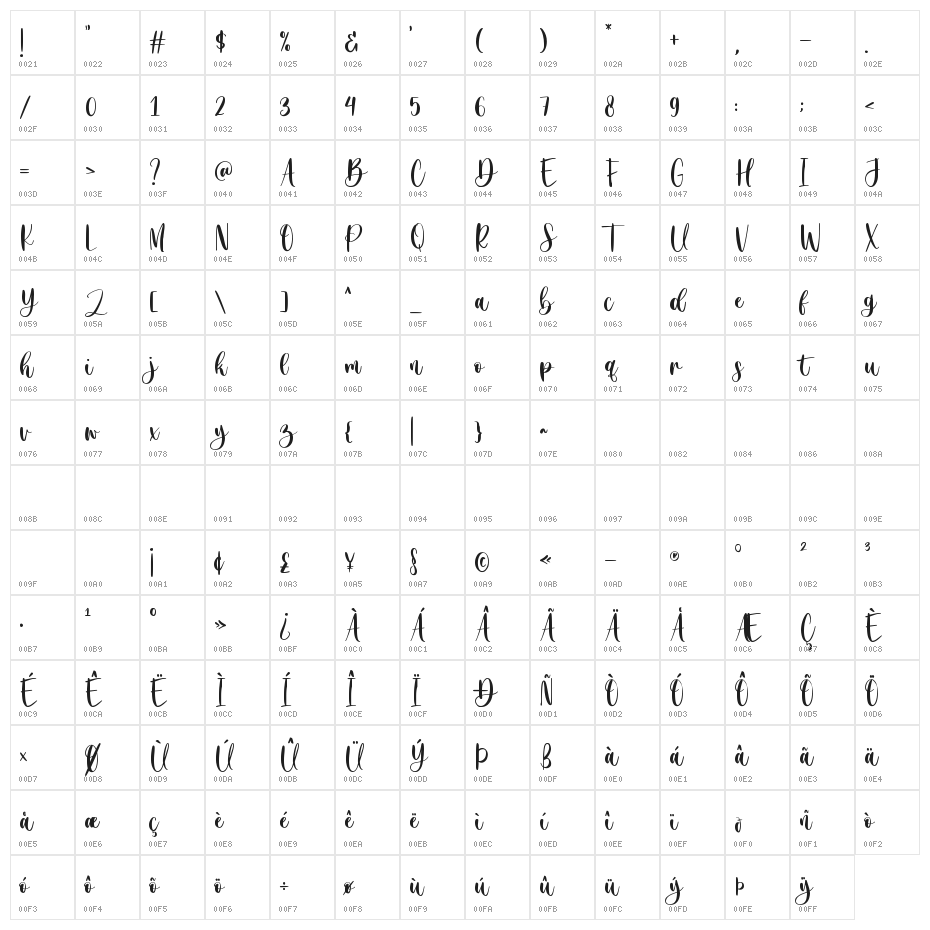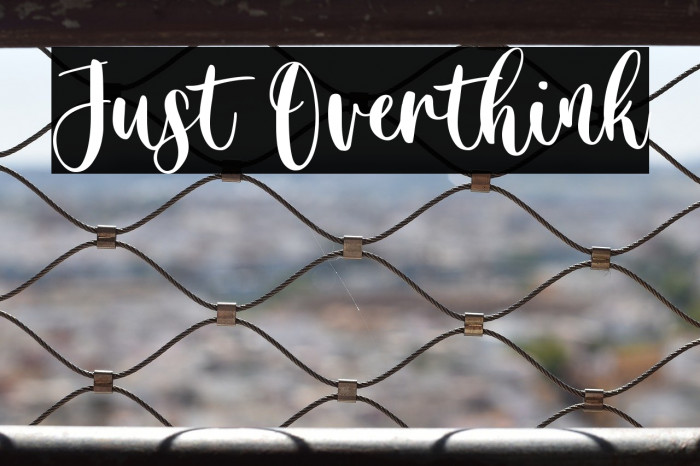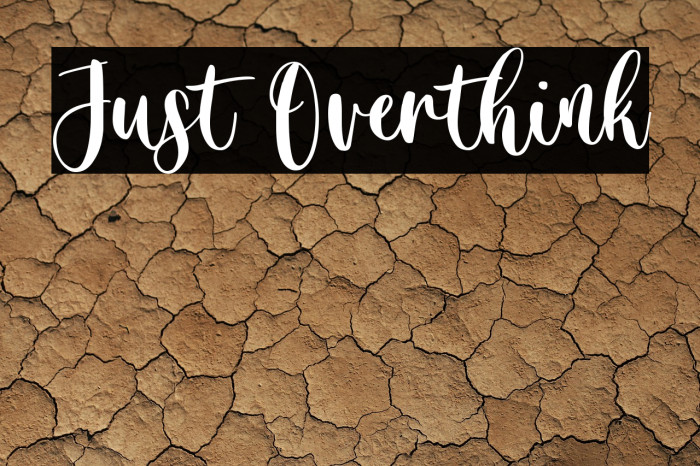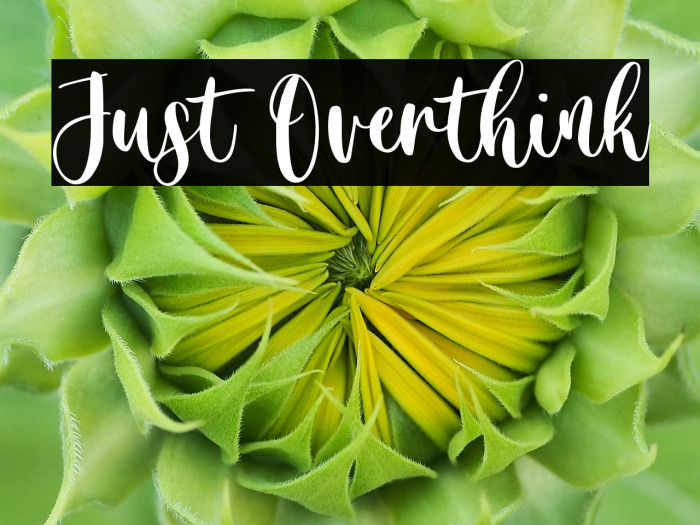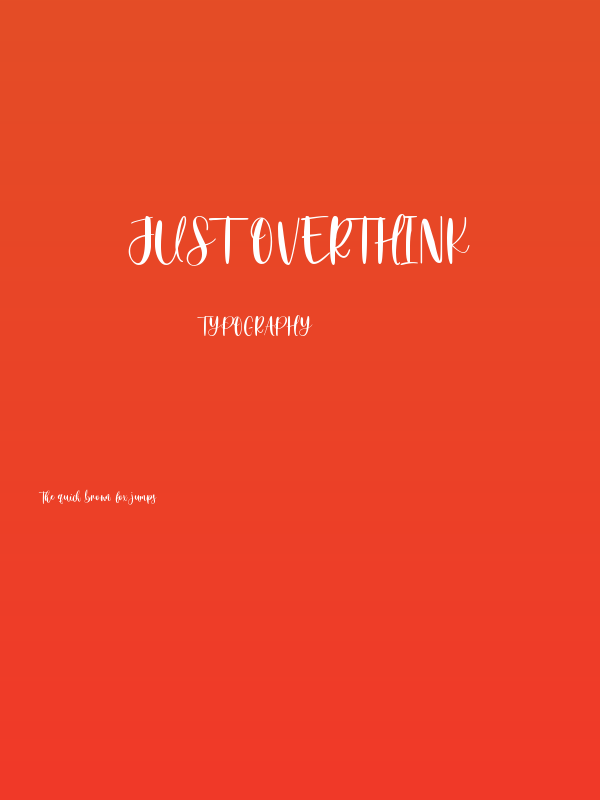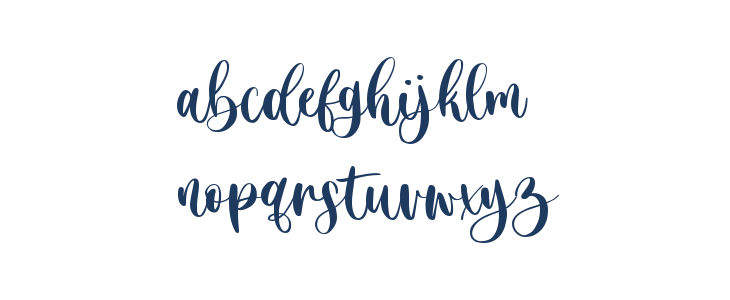
Just Overthink Font
Just Overthink Description
This font features a lively and flowing script style, characterized by its elegant and smooth curves. The letters are interconnected, creating a sense of continuity and fluidity. The uppercase letters are bold and prominent, while the lowercase letters maintain a consistent rhythm and balance. The numerals and special characters are designed to complement the overall aesthetic, maintaining the same graceful and dynamic appearance. This font exudes a sense of creativity and personal touch, making it ideal for projects that require a handwritten or artistic feel.
| Proposed Projects | Ideal for wedding invitations, greeting cards, branding, and creative projects that require a personal touch. |